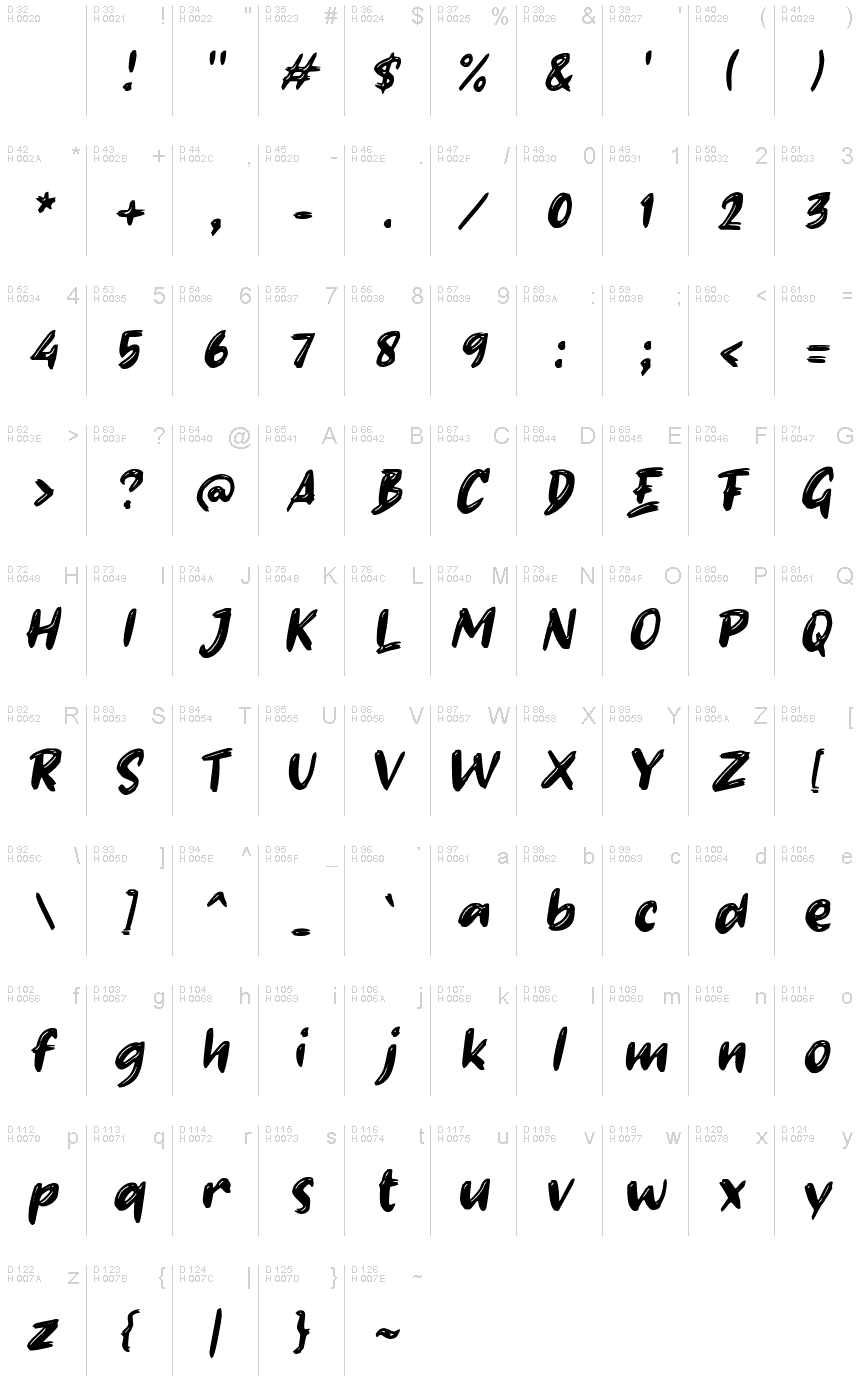
FIGHTER FISH
Fighter Fish, a dynamic creation by wep, leaps off the page with its bold brush style. The font exudes energy and movement, reminiscent of the swift turns and dashes of its aquatic namesake. Each stroke bears the marks of a painter's bristle, giving designs an organic, handcrafted feel that digital media often lacks.
The thick lines ensure high visibility while the varied brush pressure creates a rhythm within each word. Fighter Fish is not just a typeface but an artistic statement that conveys passion and action. Its aesthetic appeal lies in its imperfect edges and fluid curves which bring to life the spontaneity of brushwork.
Perfect for ventures that require an artistic touch like event invitations, creative branding, or impactful social media graphics. Fighter Fish offers designers a versatile tool to make their messages stand out with flair and originality. Whether it's to invoke excitement or to give your project an edgy yet approachable vibe, this font has both the personality and strength to elevate your creative vision.
The thick lines ensure high visibility while the varied brush pressure creates a rhythm within each word. Fighter Fish is not just a typeface but an artistic statement that conveys passion and action. Its aesthetic appeal lies in its imperfect edges and fluid curves which bring to life the spontaneity of brushwork.
Perfect for ventures that require an artistic touch like event invitations, creative branding, or impactful social media graphics. Fighter Fish offers designers a versatile tool to make their messages stand out with flair and originality. Whether it's to invoke excitement or to give your project an edgy yet approachable vibe, this font has both the personality and strength to elevate your creative vision.